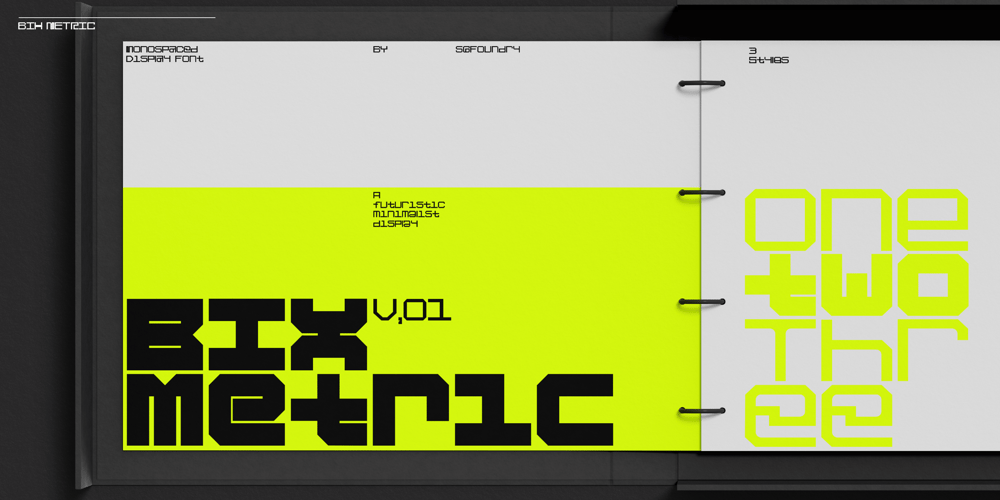
Bix Metric Font Family was designed by Paul Henry Robb and published by S6 Foundry. Bix Metric contains 3 styles and family package options. Bix Metric is a stylistic display font developed within a set grid. The mono-spaced first set of the family comes in 3 styles in both upper and lowercase glyphs allowing mixing of infinite combinations.Perfectly suited for headlines, large-format prints, brand identities, social media, advertising, editorial design, posters, magazines, logos, headings, digital and more.With multi-language support.